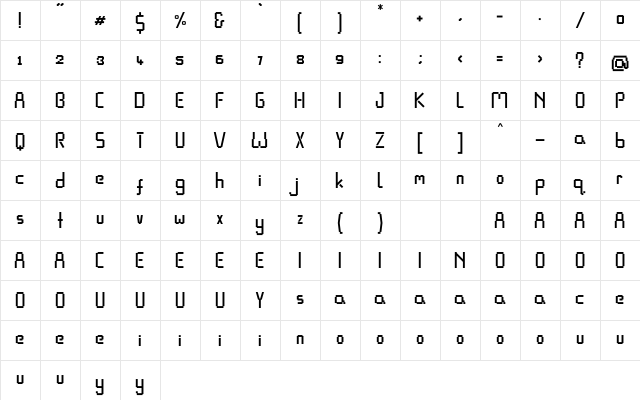
Pixel Rand Regular
Design Context for Pixel Rand Typeface
Pixel Rand celebrates the constraints of early digital type, turning pixel geometry into a distinctive and immediately recognisable style.
A natural choice for retro game titles, chiptune music branding, 8-bit UI, and digital nostalgia projects.
Pro Tip: Pair Pixel Rand with flat colour palettes and simple geometric UI elements to reinforce its digital aesthetic.